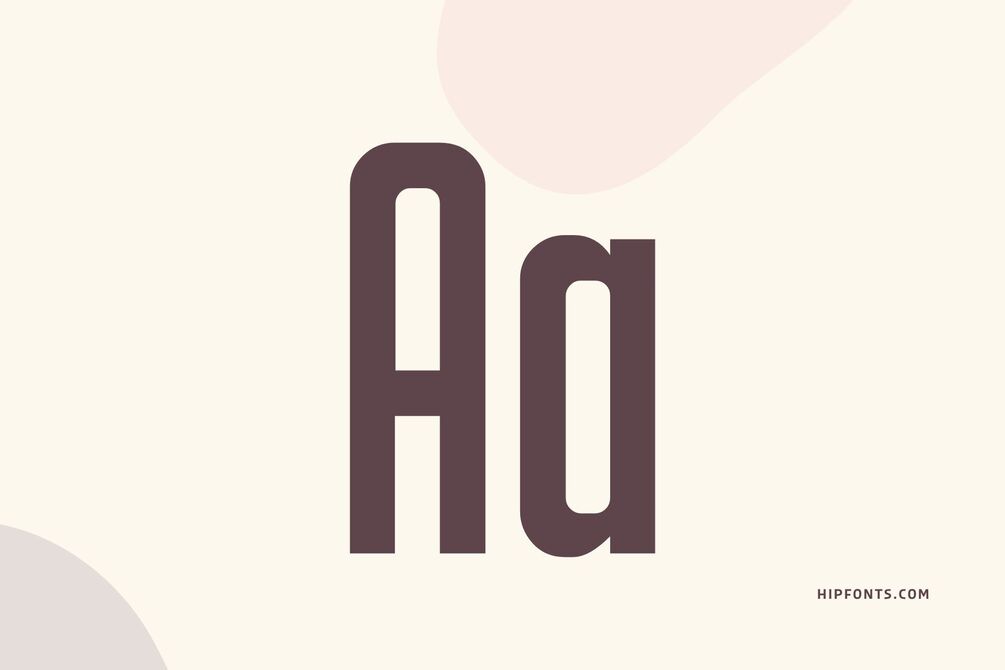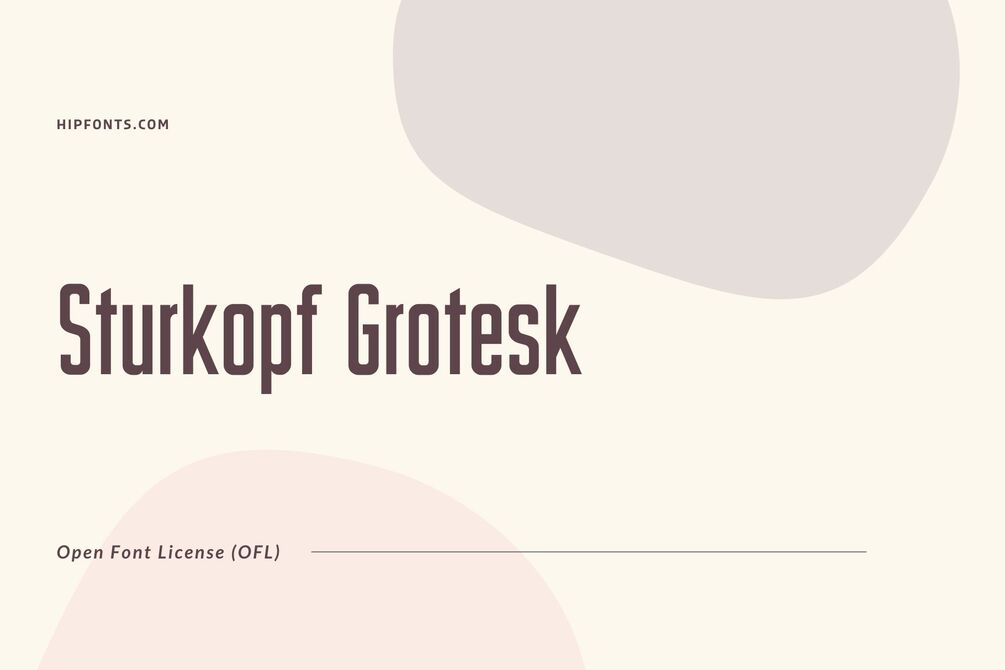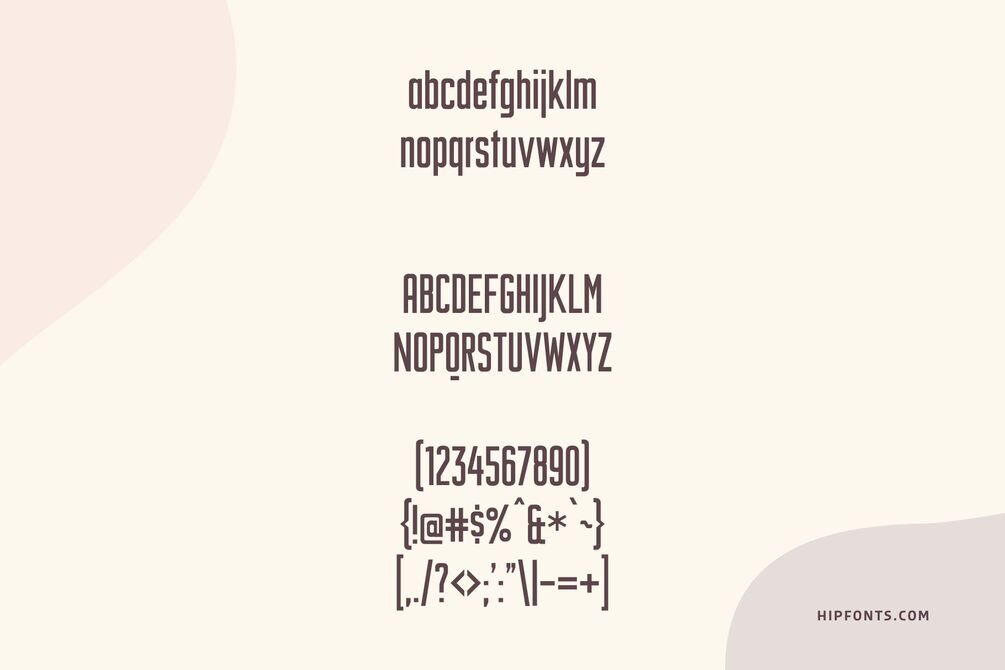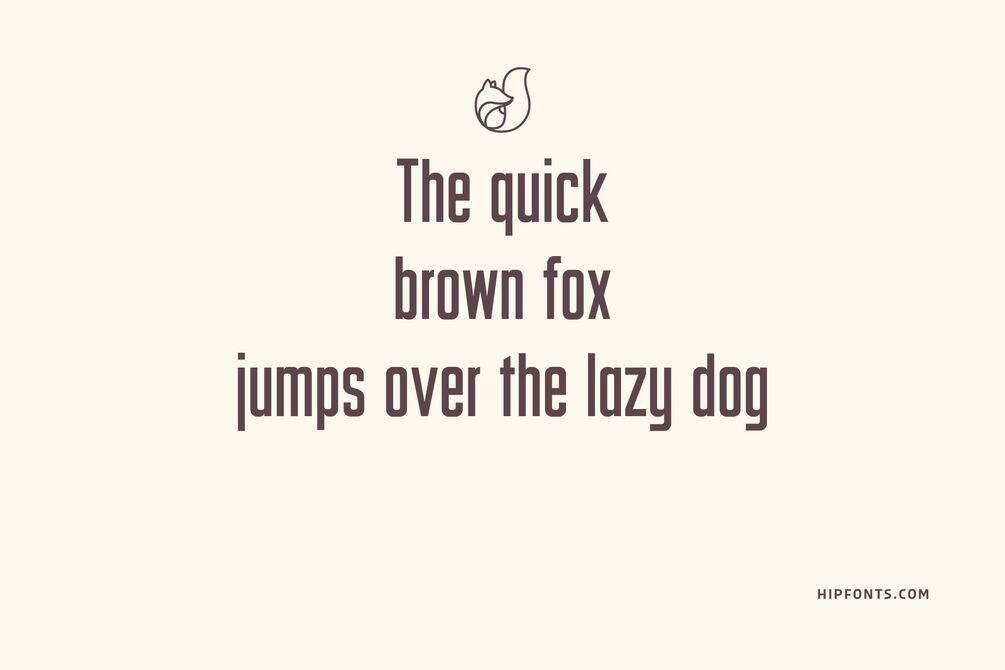
Sturkopf Grotesk
Introducing "Sturkopf Grotesk," a bold and assertive font that commands attention with its distinctive personality and strong character.
Created by Uwe Borchert, this typeface, designed to make a statement, embodies a sense of confidence and unapologetic boldness. The letterforms of Sturkopf Grotesk are robust and powerful, featuring sharp angles, geometric shapes, and clean lines that exude a sense of modernity and strength.
The designer behind Sturkopf Grotesk meticulously crafted each glyph to maintain a harmonious balance between visual impact and legibility. Its versatility shines through in various design applications, making it suitable for eye-catching headlines, impactful logos, and even branding materials that demand a touch of raw energy. Sturkopf Grotesk's ability to stand out from the crowd lies in its unique fusion of traditional grotesque characteristics with contemporary design elements, resulting in a font that is both timeless and cutting-edge.
With its commanding presence and distinct personality, Sturkopf Grotesk adds a touch of attitude to any project. From editorial layouts to advertising campaigns, this font ensures that your message is delivered with a bold and memorable impact. If you're looking to infuse your designs with an unyielding sense of strength and modernity, Sturkopf Grotesk is the ideal choice to amplify the visual impact and make a lasting impression.